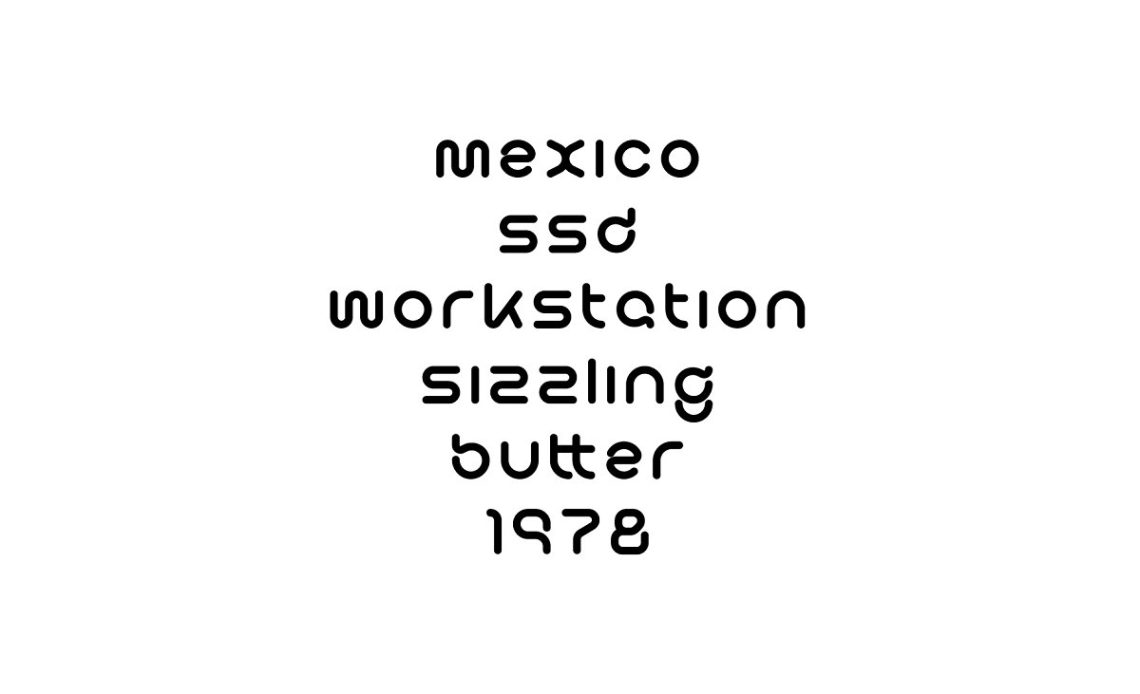
Download Vamko Sans Font for free! Created by Andrew Seah and published by Peter Travis, this sans serif font family is perfect for adding a unique touch to your designs.